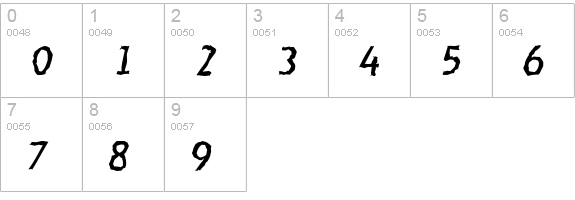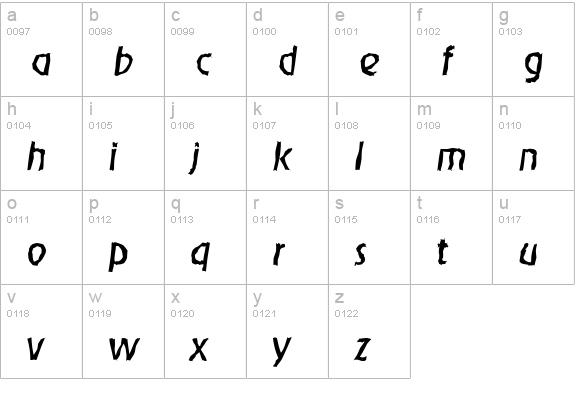
OnStageRandom-Italic is a distinctive, italic variant in the OnStageRandom typeface family \xE2\x80\x94 well suited to design and typography projects.
OnStageRandom-Italic font is a stylish and dynamic typeface that brings a touch of elegance to your designs. Its slanted and italicized characters exude a sense of creativity and sophistication, making it perfect for projects that require a modern and artistic touch. Whether you're designing a poster, logo, or website, OnStageRandom-Italic will add a unique flair to your work. The best part? OnStageRandom-Italic font is completely free to download at FontsMarket.com. This means you can easily access this eye-catching font to elevate your projects without any cost. Don't miss out on the opportunity to enhance your designs with the captivating OnStageRandom-Italic font, available for free at FontsMarket.com.